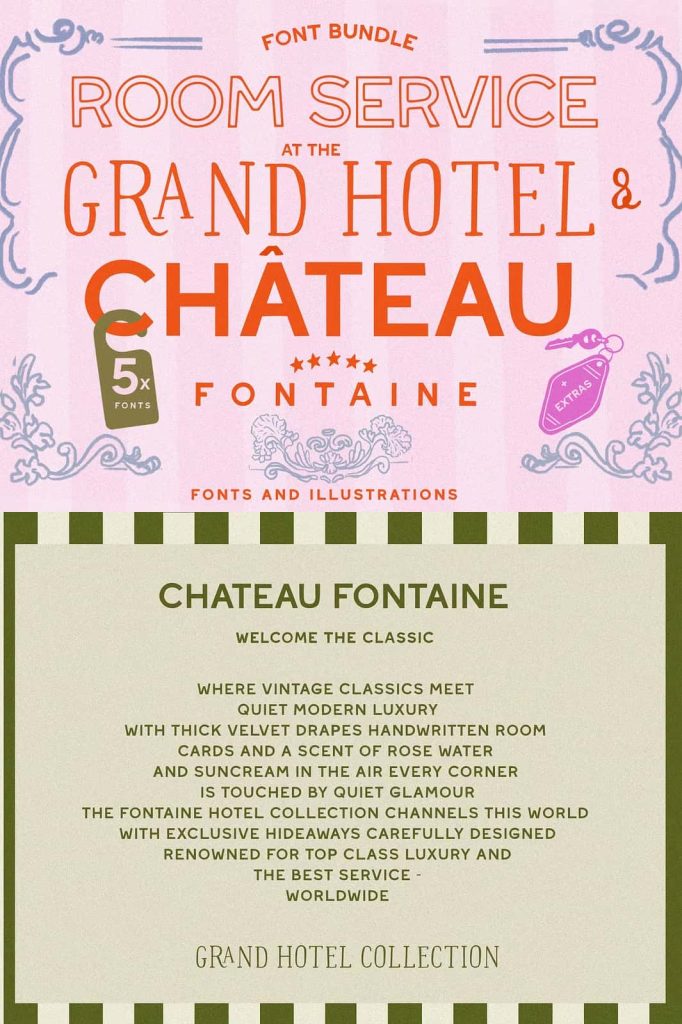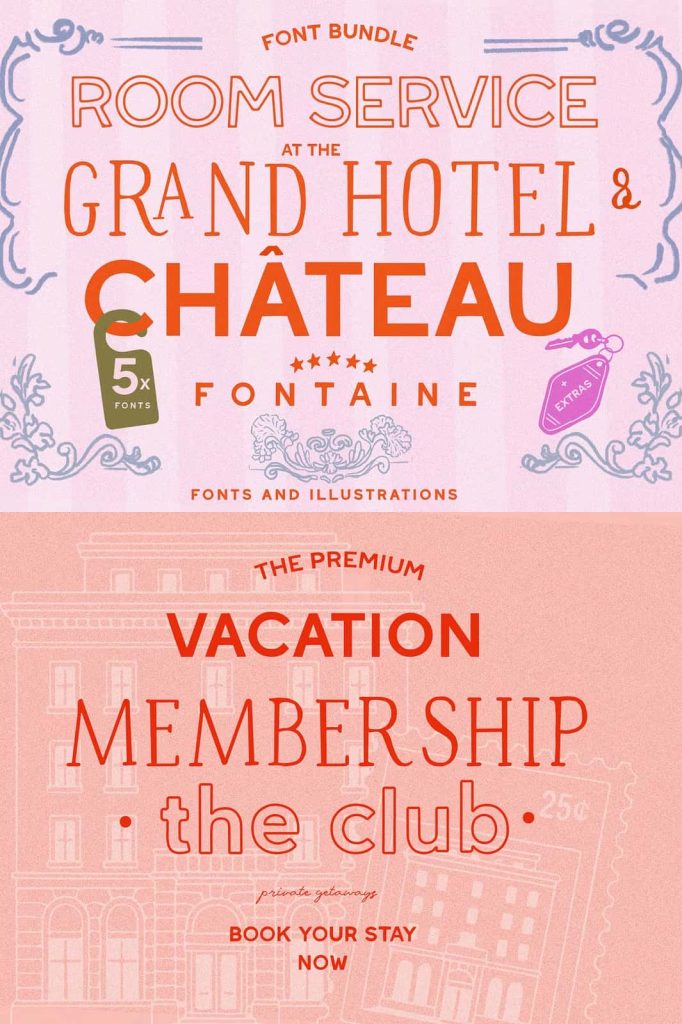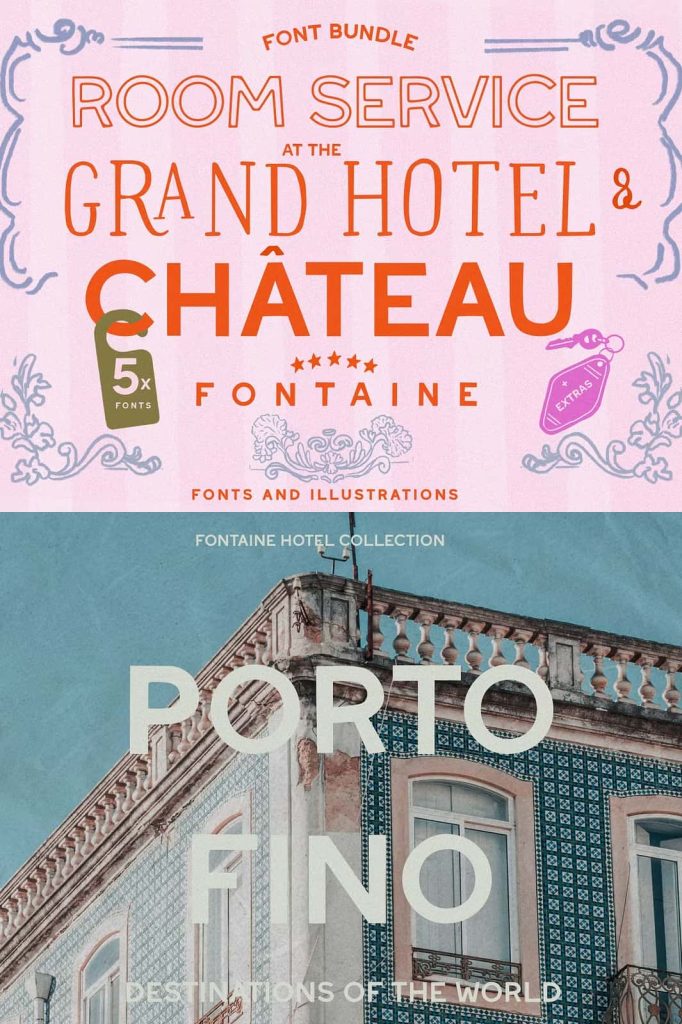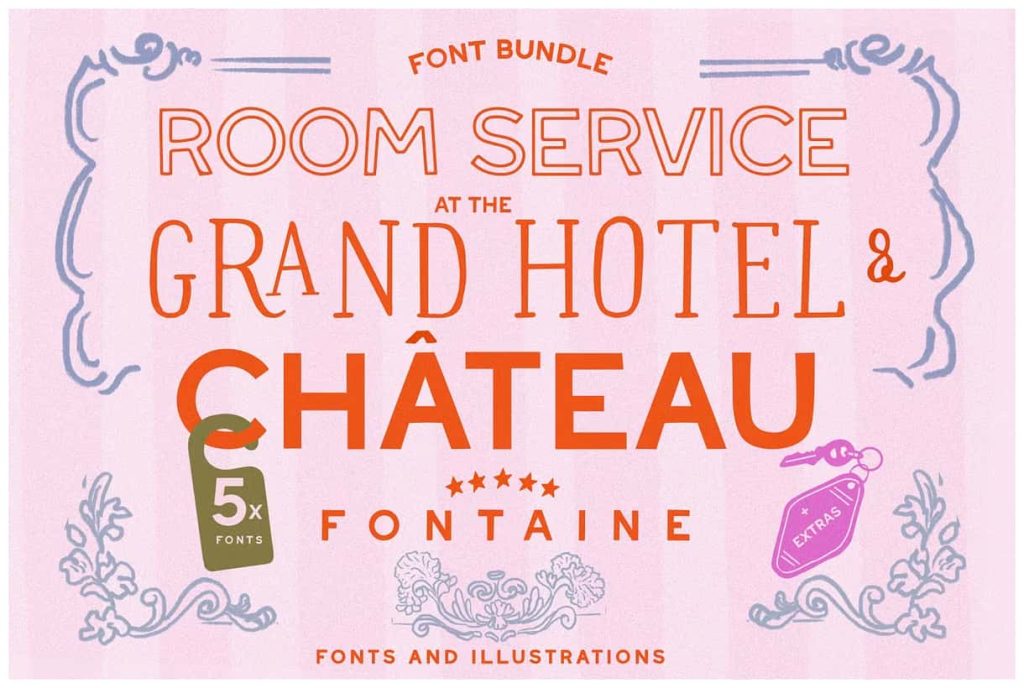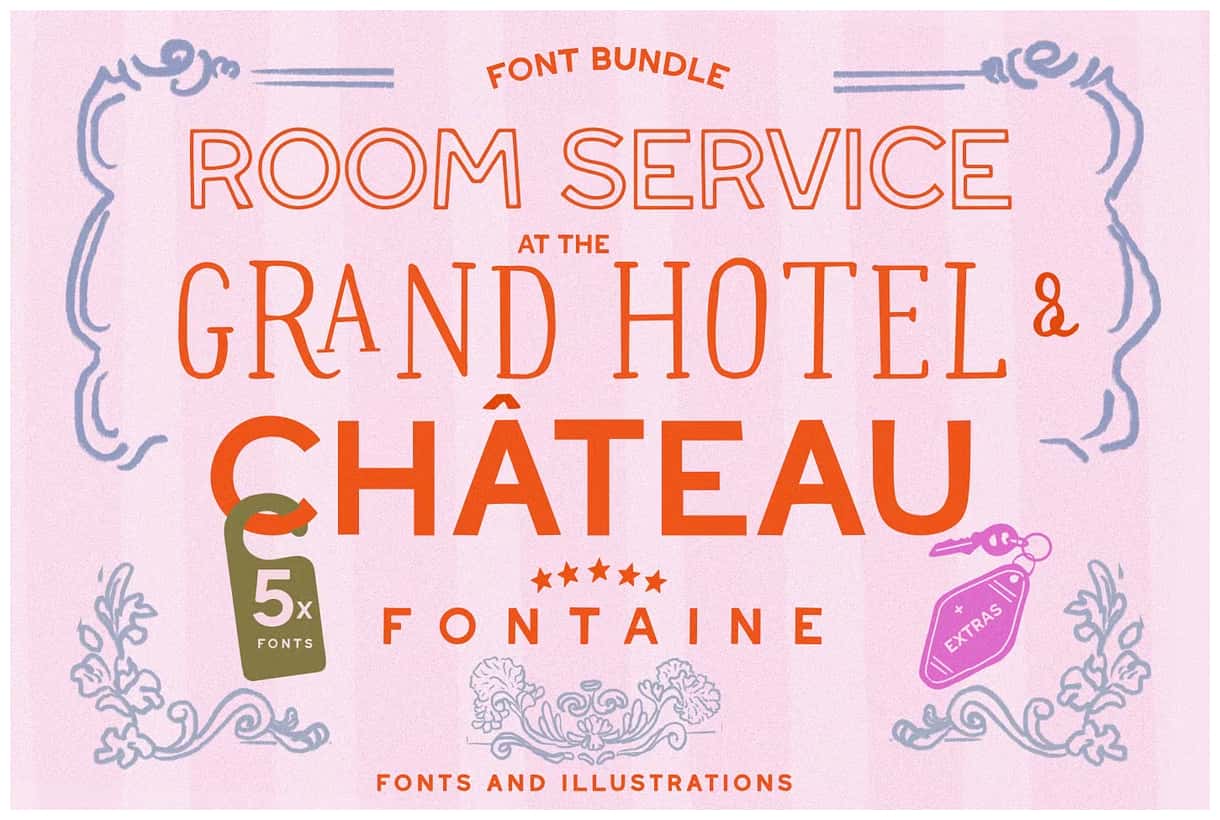
Handwritten Vintage Font CollectioncoreografySeptember 11, 2025Fonts Destination 70’s glam: The Fontaine Font Collection is a curated bundle of five handcrafted fonts, Download